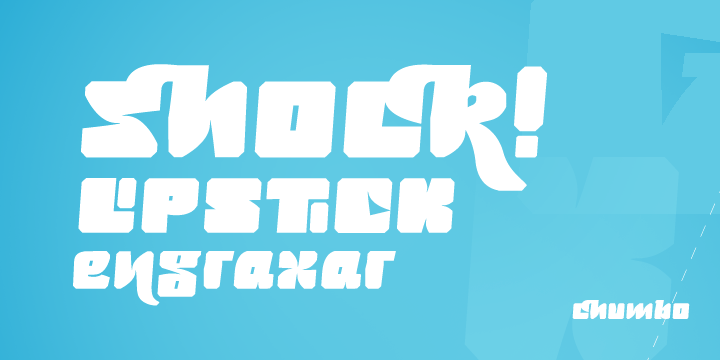
Do you need a heavy font with a lot of personality? Chumbo its a great choice! With many ligatures a several alternates, Chumbo its a great font to bring a fresh look to any design.
Chumbo